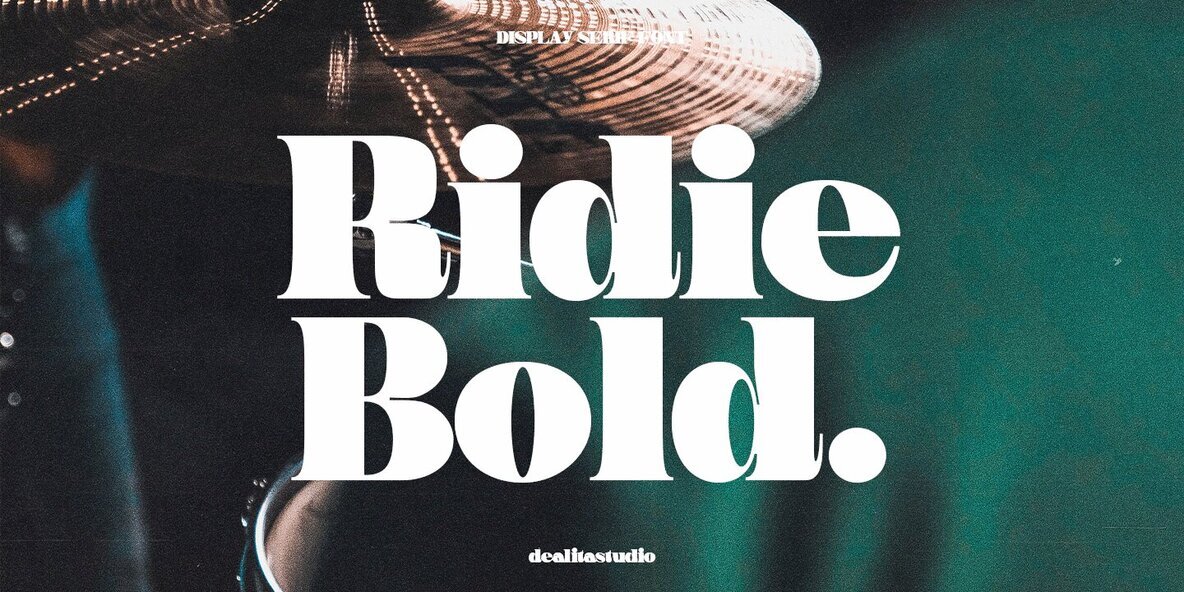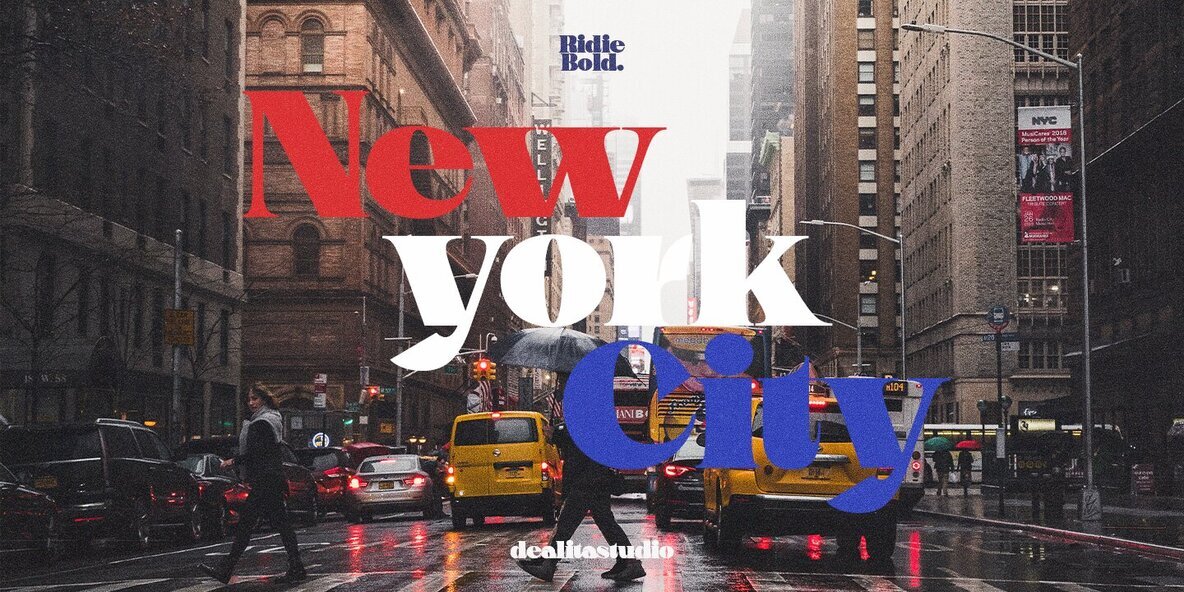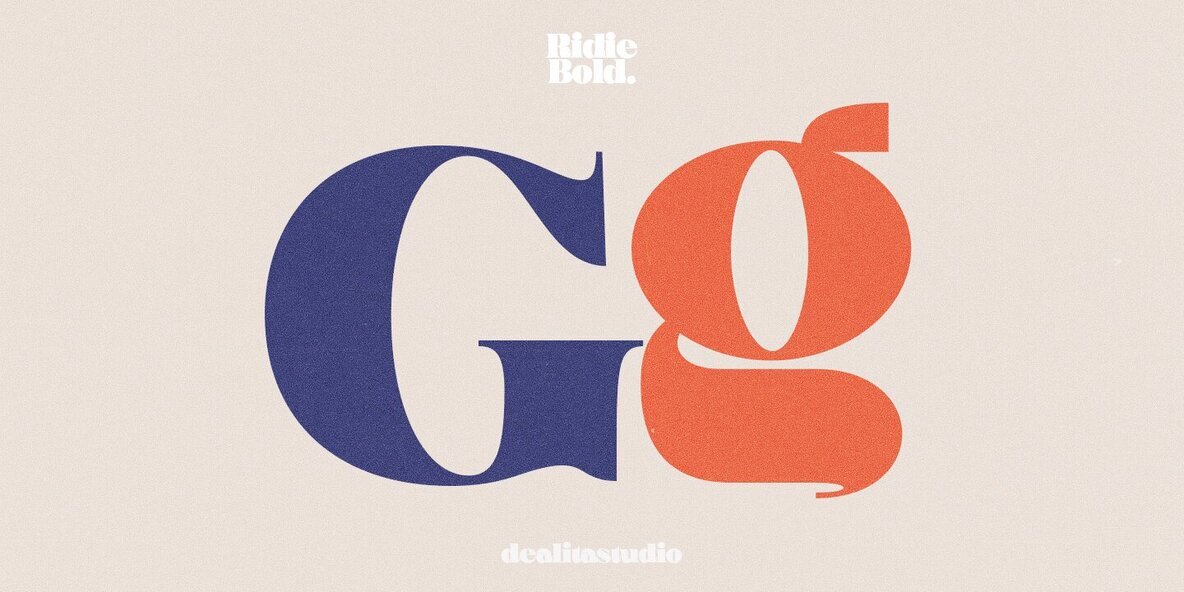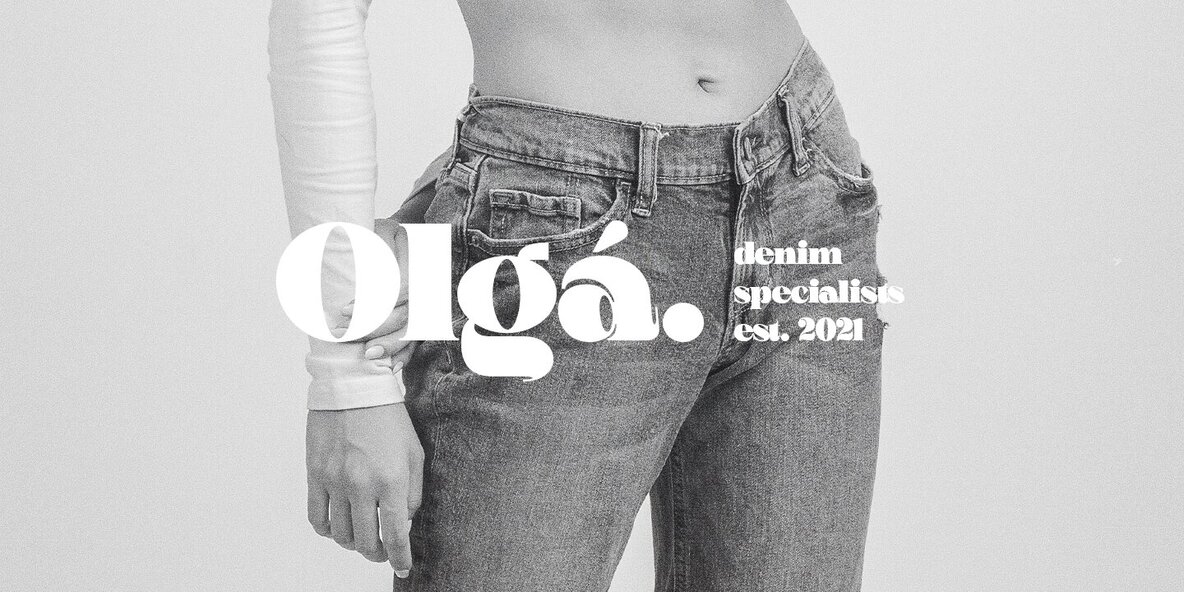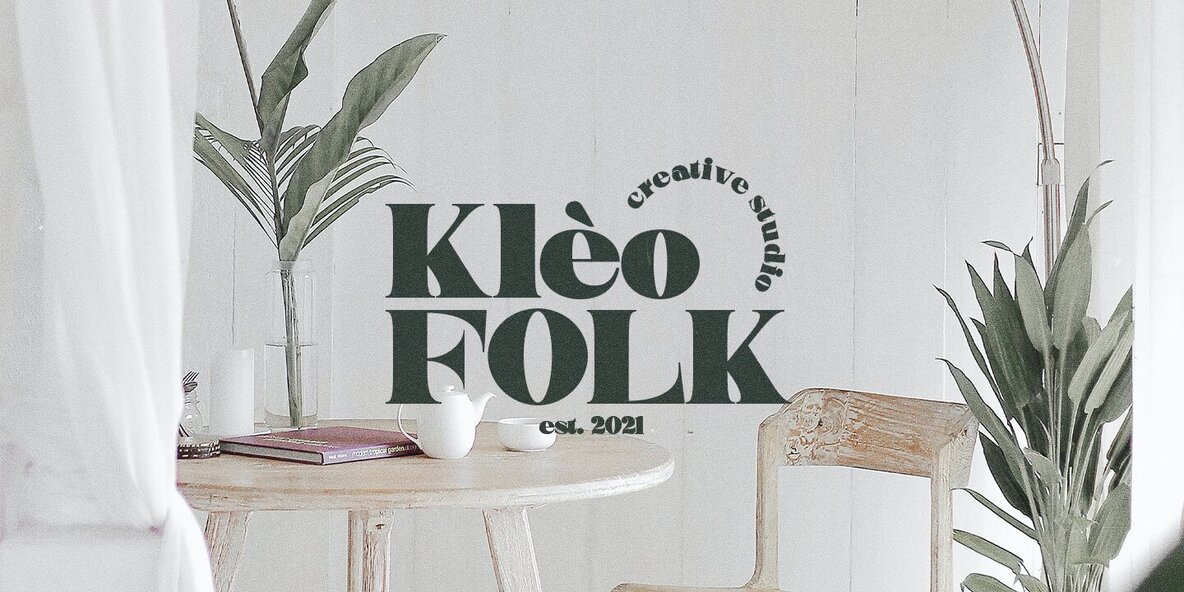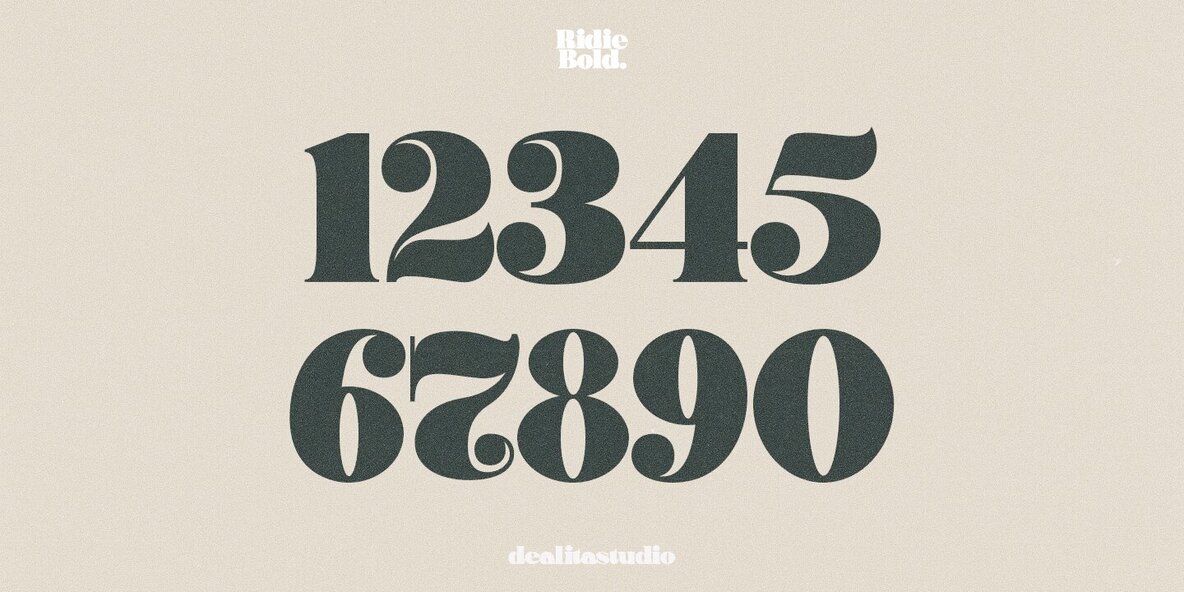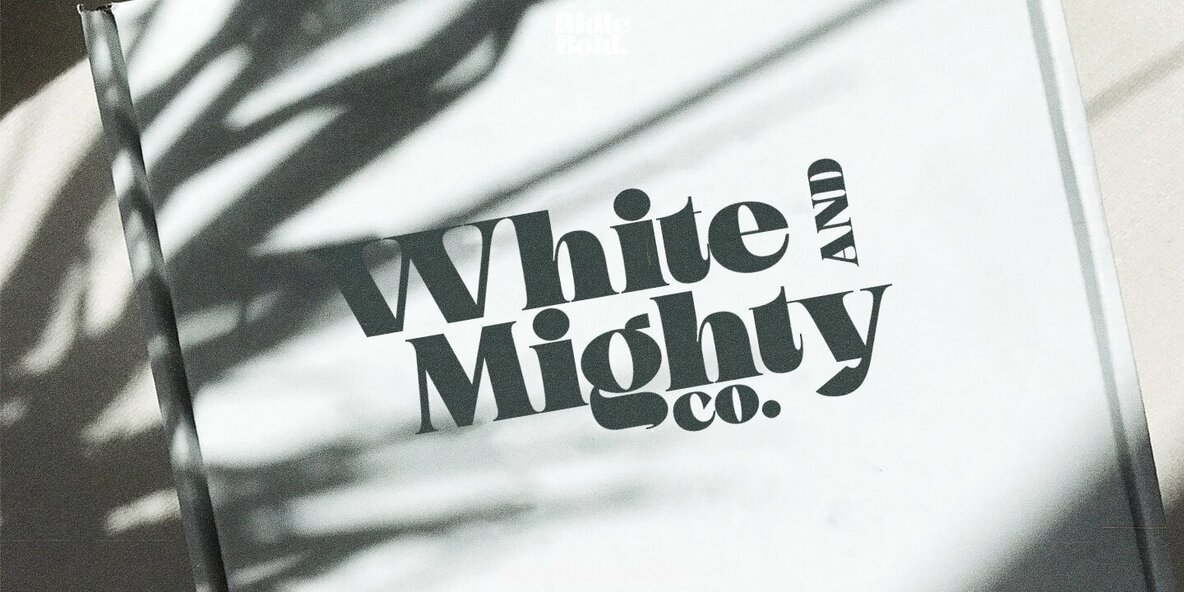
Ridie Font
Ridie Regular
Ridie is a distinctive display serif typeface characterized by bold, fun, and playful elements, offering a pop of style that commands attention. Ideal for projects that require a strong visual impact, this typeface ensures brands stand out emphatically. With lively and confident letterforms, Ridie is the quintessential choice for designs seeking a fresh and memorable feel. It shines in applications like branding, headlines, creative logos, packaging, and social media graphics, where a unique identity is paramount. Incorporate Ridie to infuse energy and character into your work—it is a quintessential tool for making a bold, playful, and memorable statement.Ridie: A Bold Display Serif for Playful Designs